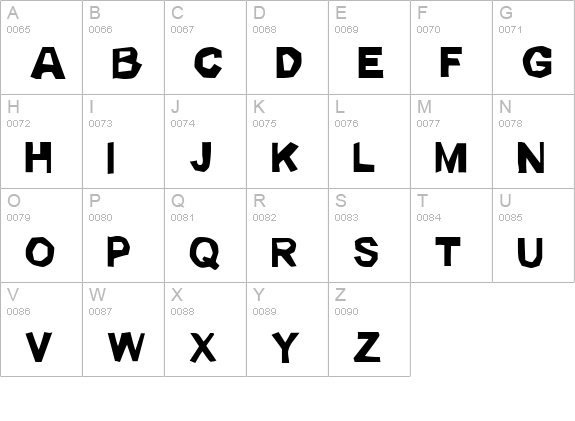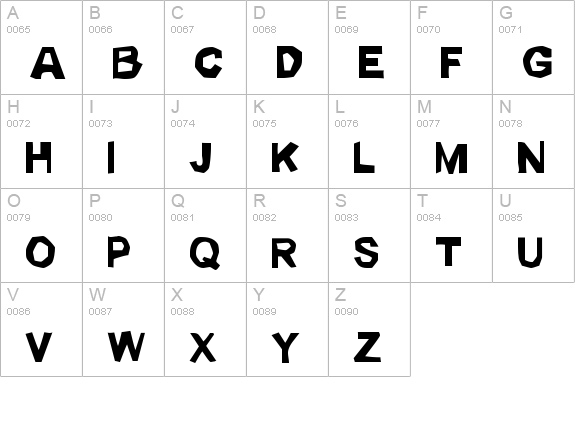
Lickspittle Font Details
Introducing Lickspittle font - a whimsical and playful typeface that is sure to add a touch of charm to your creative projects. This delightful font features quirky characters and a unique style that will make your designs stand out. With its handcrafted look and feel, Lickspittle font is perfect for a variety of projects, from invitations and greeting cards to logos and branding. Its versatility and charm make it a must-have font for any designer looking to add a bit of fun to their work. And the best part? Lickspittle font is available for free download at FontsMarket.com. So go ahead and grab this charming font today and add a touch of whimsy to your designs!